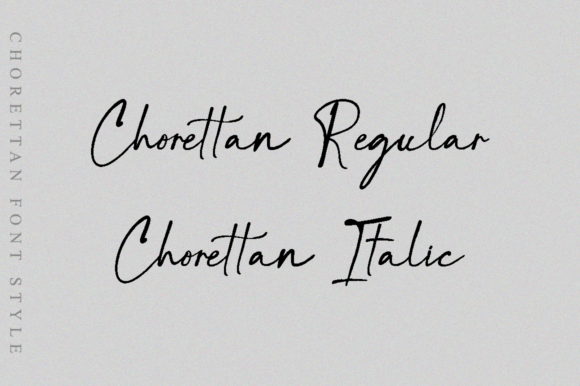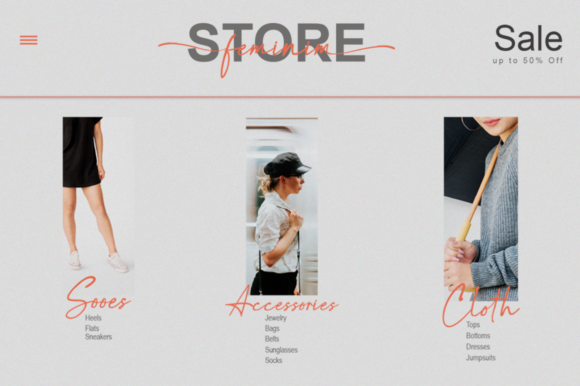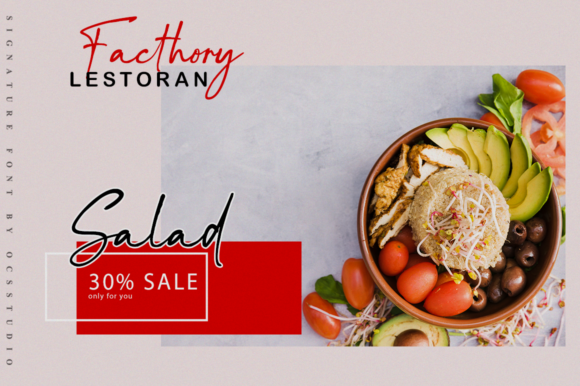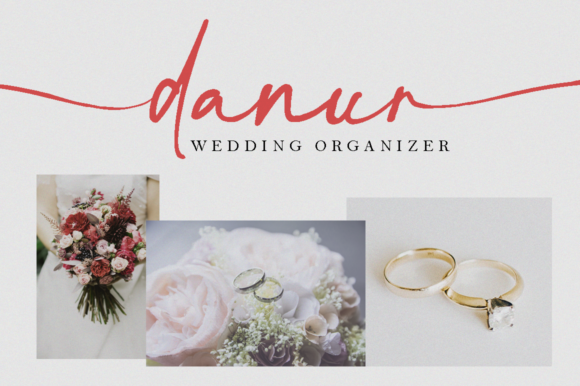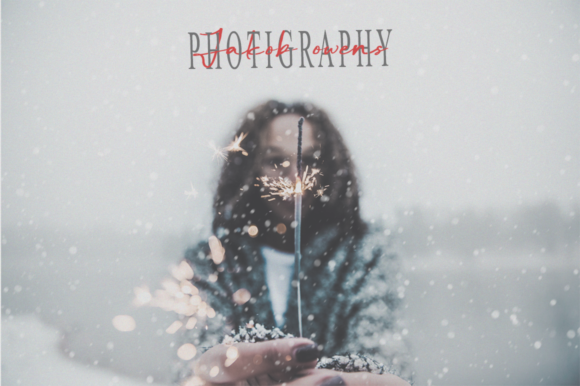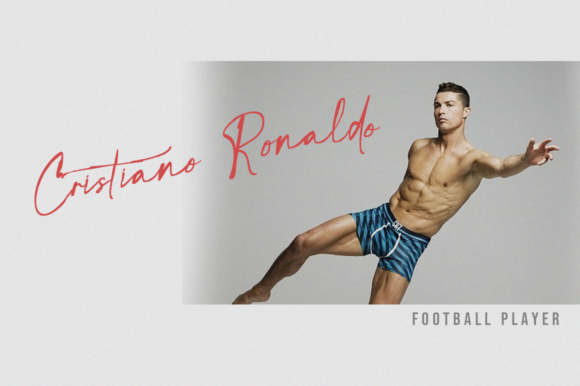
Introducing Chorettan Font: The Perfect Signature Script for Your Design Projects
Are you tired of using generic fonts that lack personality in your design projects? Look no further than Chorettan Font, a beautiful signature-style script typeface that adds a touch of elegance and sophistication to any design. Made with a natural hand stroke, Chorettan Font is the perfect choice for designers and crafters who want to add a personalized touch to their work.
What is Chorettan Font?
Chorettan Font is a unique script typeface that mimics the natural flow of handwriting. With its fluid strokes and varying letterforms, Chorettan Font gives your designs a personal and human touch that’s hard to replicate with traditional fonts. Whether you’re working on a logo, branding project, or social media graphics, Chorettan Font is sure to make your designs stand out.
Key Features of Chorettan Font
- Natural Hand Stroke: Chorettan Font is made with a natural hand stroke, giving it a unique and organic feel.
- Signature-Style Script: Chorettan Font is a signature-style script typeface that’s perfect for adding a personal touch to your designs.
- Personalized Appearance: With Chorettan Font, you can add a personalized appearance to your designs that’s sure to impress.
- Adds Personality: Chorettan Font adds a personal touch to your designs that’s hard to replicate with traditional fonts.
- Stand Out: With Chorettan Font, your designs are sure to stand out from the crowd.
- Versatile: Chorettan Font can be used for a wide range of design projects, from logos and branding to social media graphics and more.
- Easy to Read: Despite its unique and flowing script, Chorettan Font is easy to read and understand.
Design Ideas Using Chorettan Font
Chorettan Font is a versatile font that can be used for a wide range of design projects. Here are a few ideas to get you started:
- Logos and Branding: Use Chorettan Font to create a unique and personalized logo or branding materials.
- Social Media Graphics: Use Chorettan Font to create eye-catching social media graphics that stand out from the crowd.
- Wedding and Event Invitations: Use Chorettan Font to create beautiful and elegant wedding and event invitations.
- Product Packaging: Use Chorettan Font to add a personal touch to product packaging and labels.
Chorettan Font is a beautiful signature-style script typeface that’s perfect for adding a personal touch to your design projects. With its natural hand stroke and flowing script, Chorettan Font is sure to make your designs stand out. Whether you’re a designer or crafter, Chorettan Font is a must-have font in your collection. So why wait? Download Chorettan Font today and start creating stunning designs that showcase your personality and style!